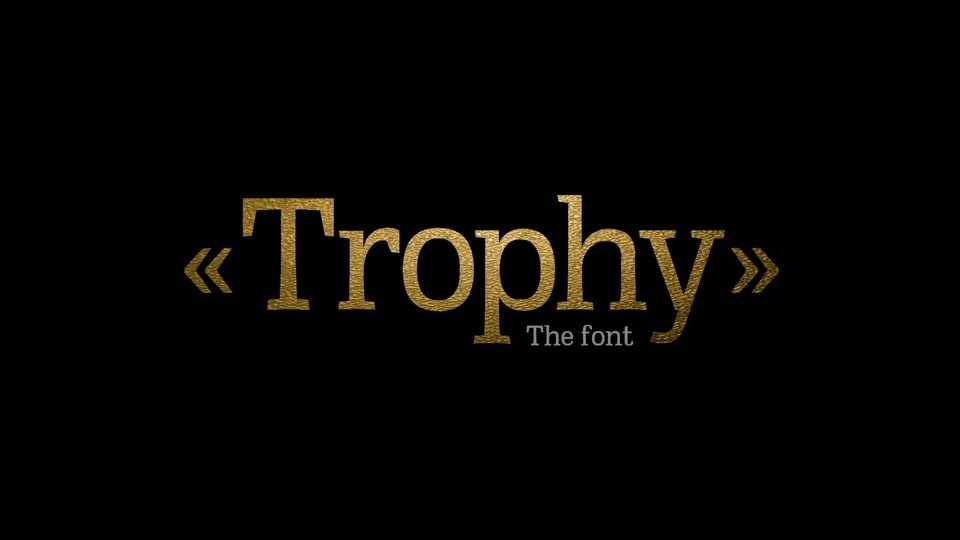
Download Trophy Pro font, a versatile serif typeface designed mainly for screen in small and medium sizes. However, Trophy Pro works perfect for print as well.